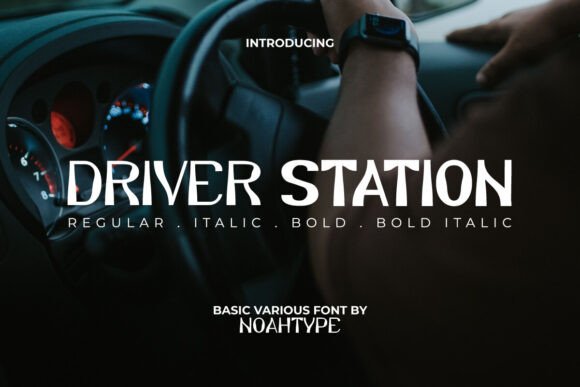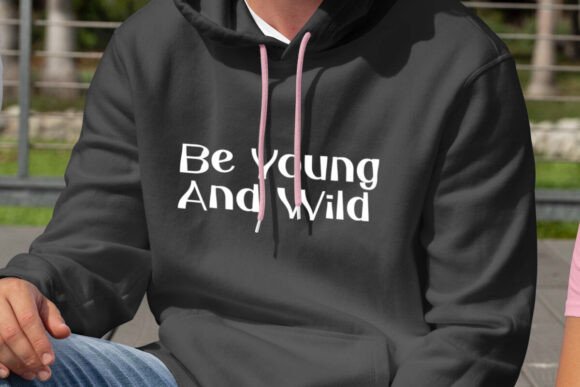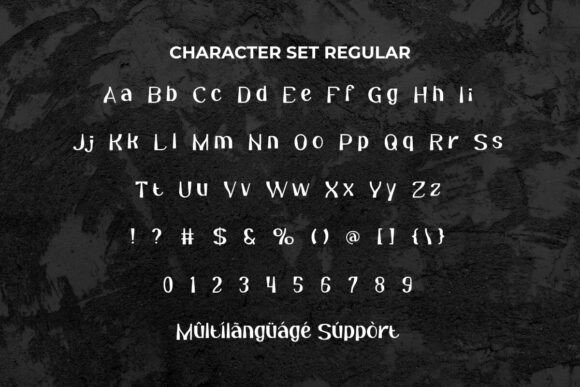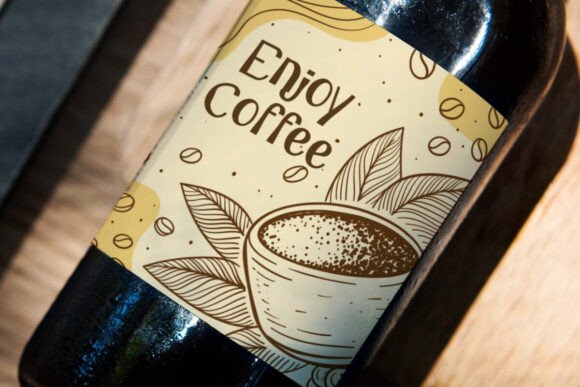
Driver Station Font: A Bold & Retro Display Font for Eye-Catching Designs
About the Driver Station Font
From logos to headlines, the Driver Station Font is the perfect choice for making a lasting impression. Driver Station is a unique font family that is inspired from retro racing displays. This font has unique shaped that will make your designs more stylish! It actually would be perfect choice for many industries, such as accessories, advertisement, café, fashion, game, handicrafts, movie, printing, publishing, and more!
Driver Station’s bold, retro-inspired forms excel in headlines, logos, and short, impactful text for posters and packaging. Its strong personality is ideal for brands projecting energy and a sense of vintage cool—think automotive, sportswear, or gaming. Avoid using it for large blocks of body text or UI elements; its unique letterforms are less legible at smaller sizes.
Pairing Driver Station with a clean sans-serif like Futura for body copy creates a dynamic contrast. For a more playful feel, consider pairing it with a rounded geometric sans-serif, while a classic serif like Garamond offers a sophisticated counterpoint.
The font’s core personality is energetic and assertive, making it unsuitable for projects requiring subtlety or elegance. Its retro styling lends itself to brands seeking a nostalgic yet modern aesthetic.